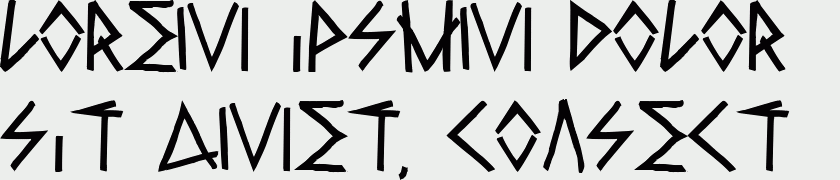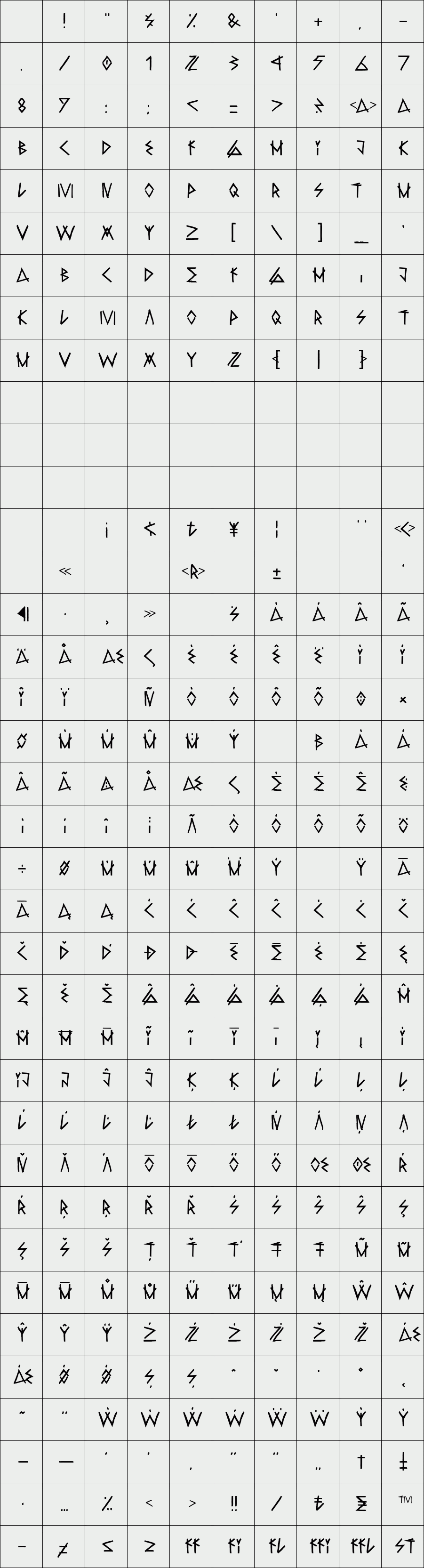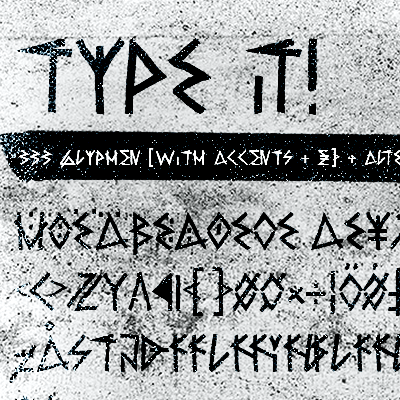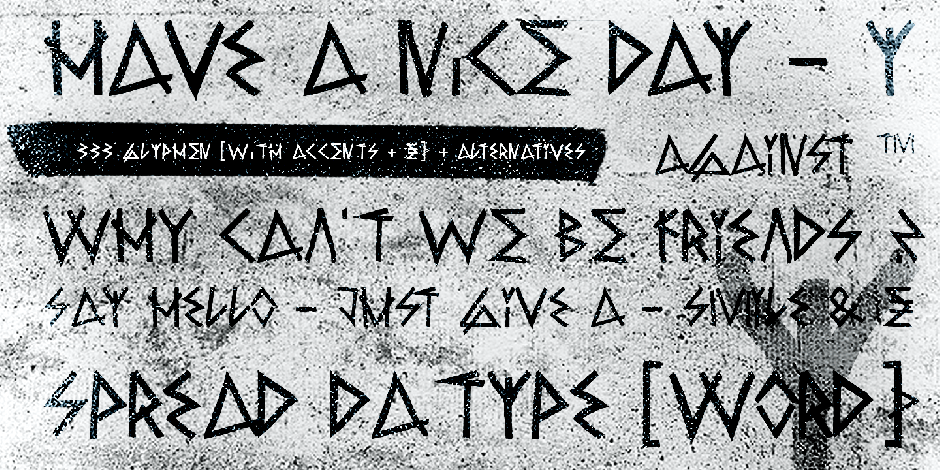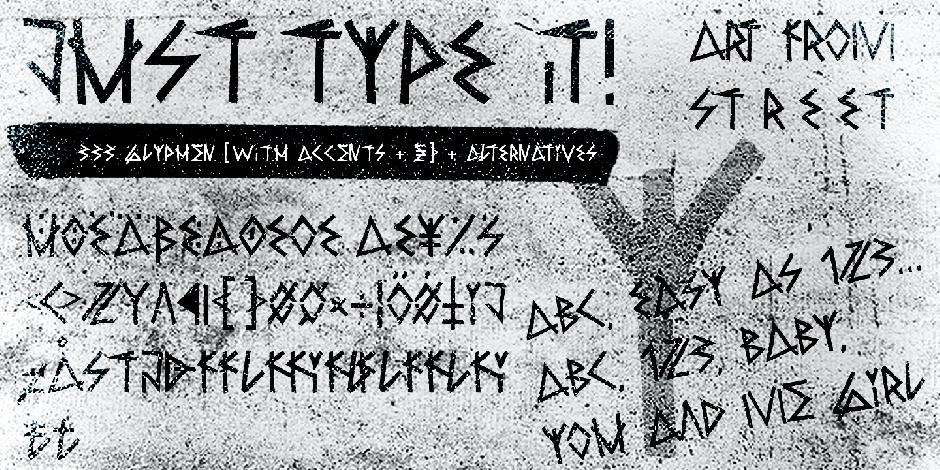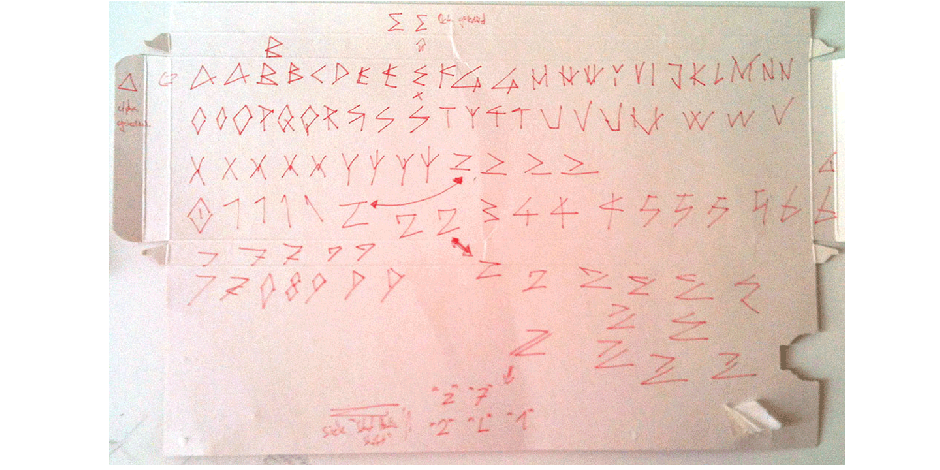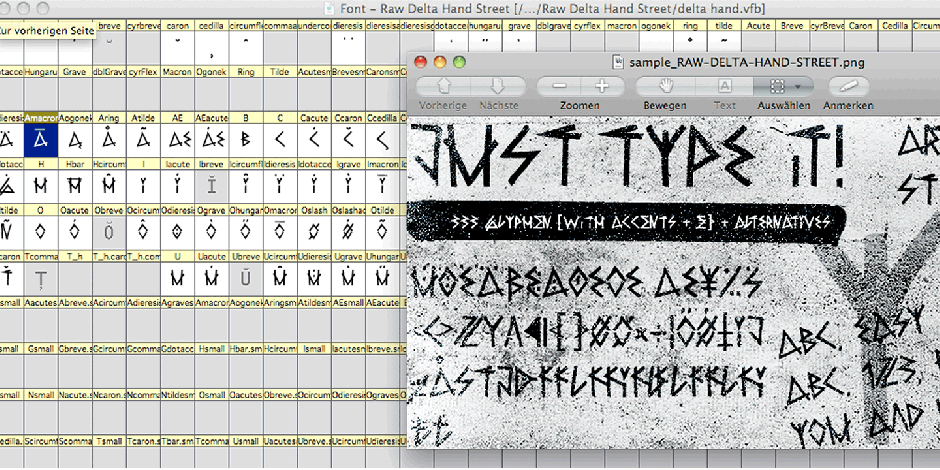
Raw Delta Hand Street
CONCEPT/CHARACTERISTICS
The geometric and rough character, gives the typeface a high recognition value and uniqueness.
The motto is handmade, rough, geometric, urban and experimental.
APPLICATION AREA
The dirty, DIY-like, urban & graffiti look of the handmade font „raw delta hand street“ would look good at logos, display size for poster, flyer, comics and graphic novel lettering, headlines in magazines or websites, packaging, music covers or webbanner etc.
TECHNICAL SPECIFICATIONS
Headline Font | Display Font | Grunge Script Font „raw delta hand street“
OpenType Font with & 333 glyphs & 1 style (regular).
Alternative letters, symbols and ligatures (with accents & €)
KONZEPT/BESONDERHEITEN
Der geometrische und raue Charakter, geben der Schrift eine hohe Wiedererkennung und eine gewisse Einzigartigkeit.
Das Motto lautet handgemacht, rau, geometrisch, urban und experimentell.
EINSATZGEBIETE
Das dreckige, DIY-artige, urbane- & graffiti-artige Aussehen der Schrift würde sich über folgende Gebiete sehr freuen und sich dort dreckig heimisch fühlen: Logos/Wortmarken aller Art, Flyer für fast jede Party, PlattenCover, Comic-Cover und Graphic Novel Lettering, Plakat Design, Game– und Videospiel Design aller Genres, als Headlineschrift für print und digitale Magazine, Bücher und Webseiten u.v.m.
TECHNISCHE INFORMATIONEN
Überschriften | Auszeichnungsschrift | Handgezeichnete Schrift »raw delta hand street«.
OpenType Schrift mit 333 Glyphen & 1 Schriftschnitt (regular).
Alternativen Buchstaben, Symbole und Ligaturen (mit diakritischen Zeichen & €)